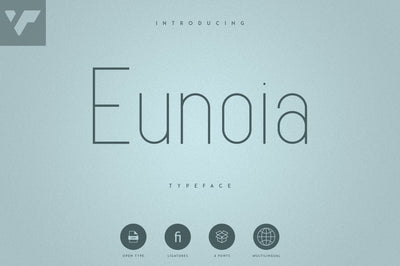
Eunoia - Sans Serif Typeface
Introducing Eunoia - Sans Serif Typeface - 4 weights
Eunoia is minimal, clean typeface with 4 fonts, ligatures and multilingual support. It's a very versatile font that works great in large and small sizes.
Eunoia is perfect for branding projects, home-ware designs, product packaging, magazine headers - or simply as a stylish text overlay to any background image.
- Uppercase, lowercase, numeral,punctuation & Symbol
- Light
- Regular
- Bold
- Black
- Multilingual support